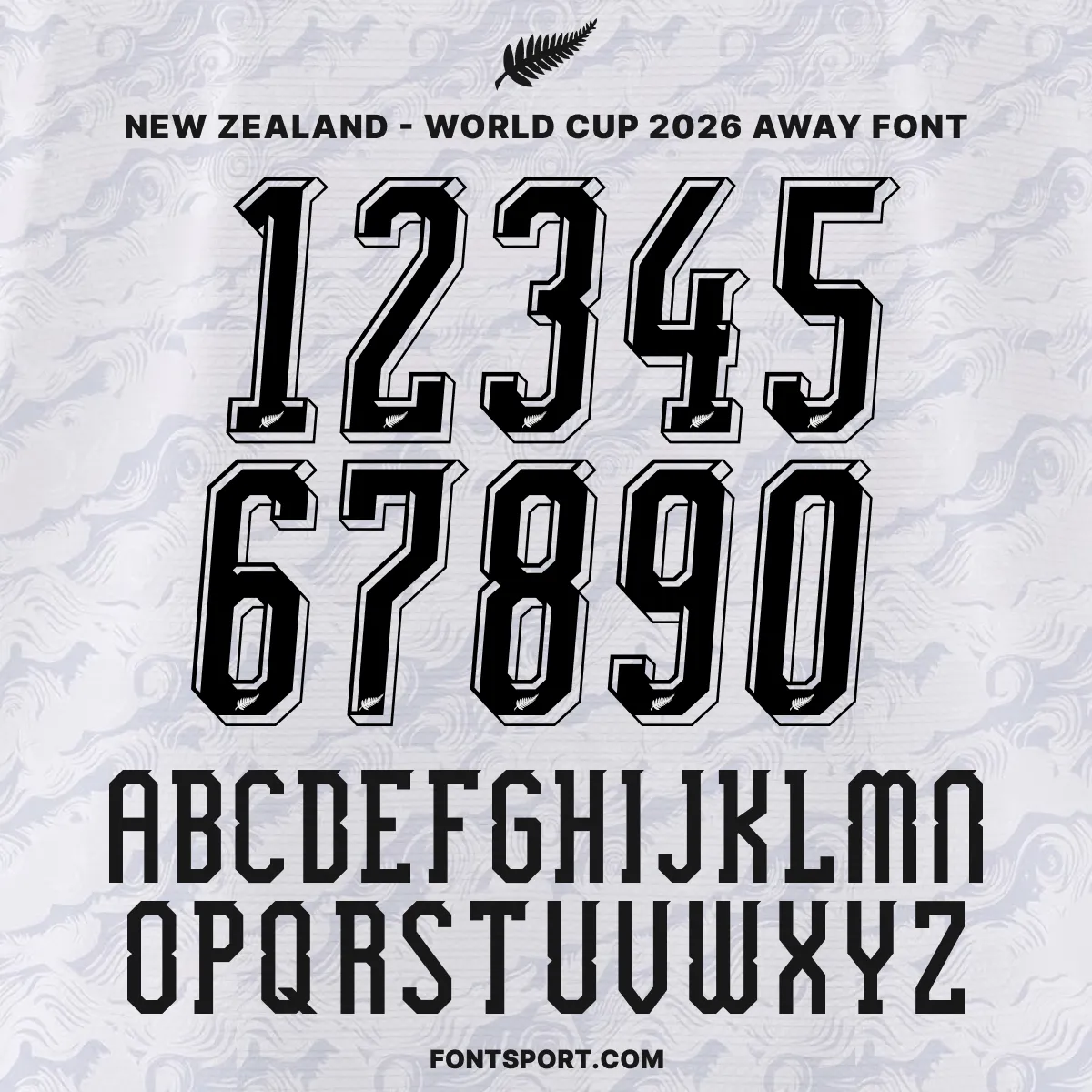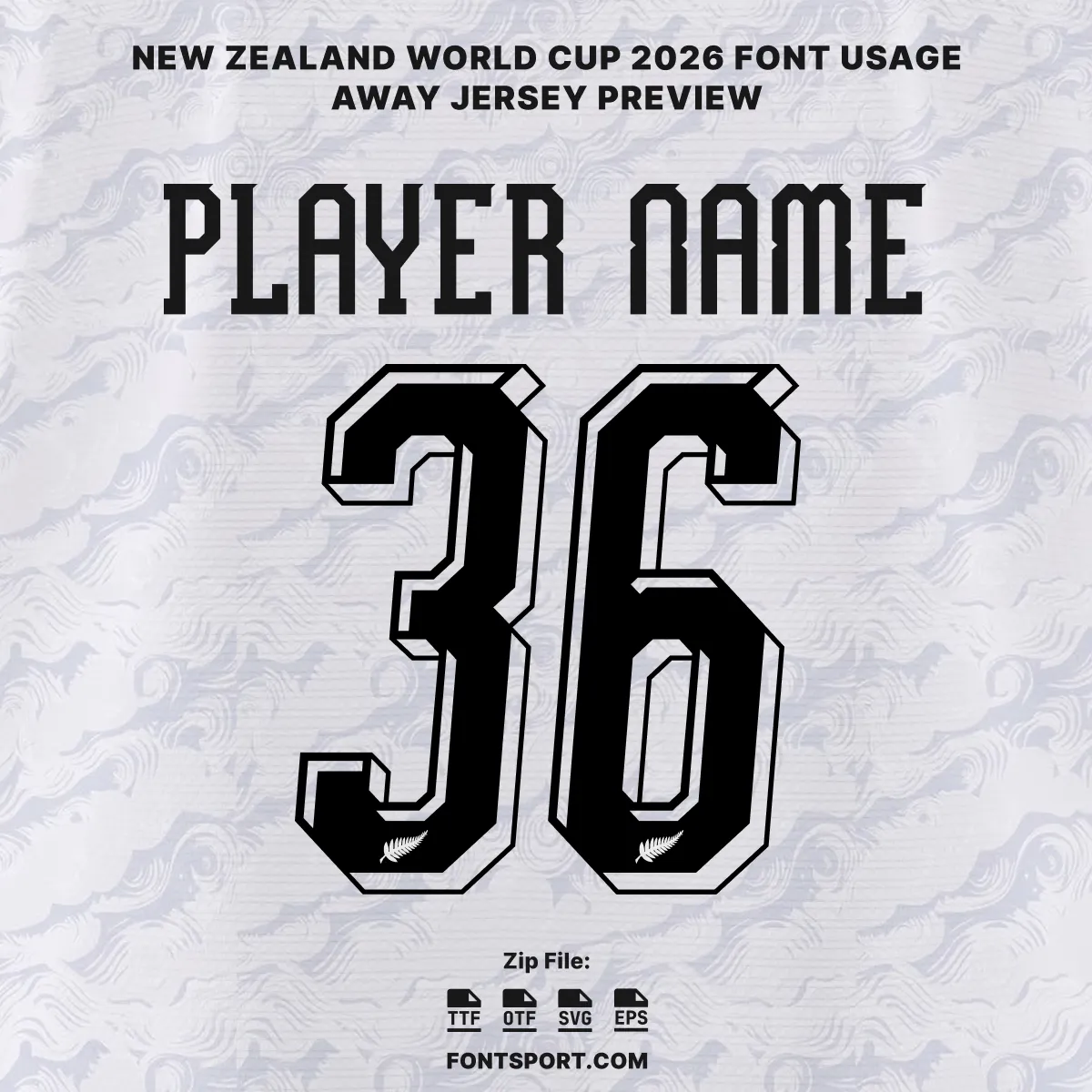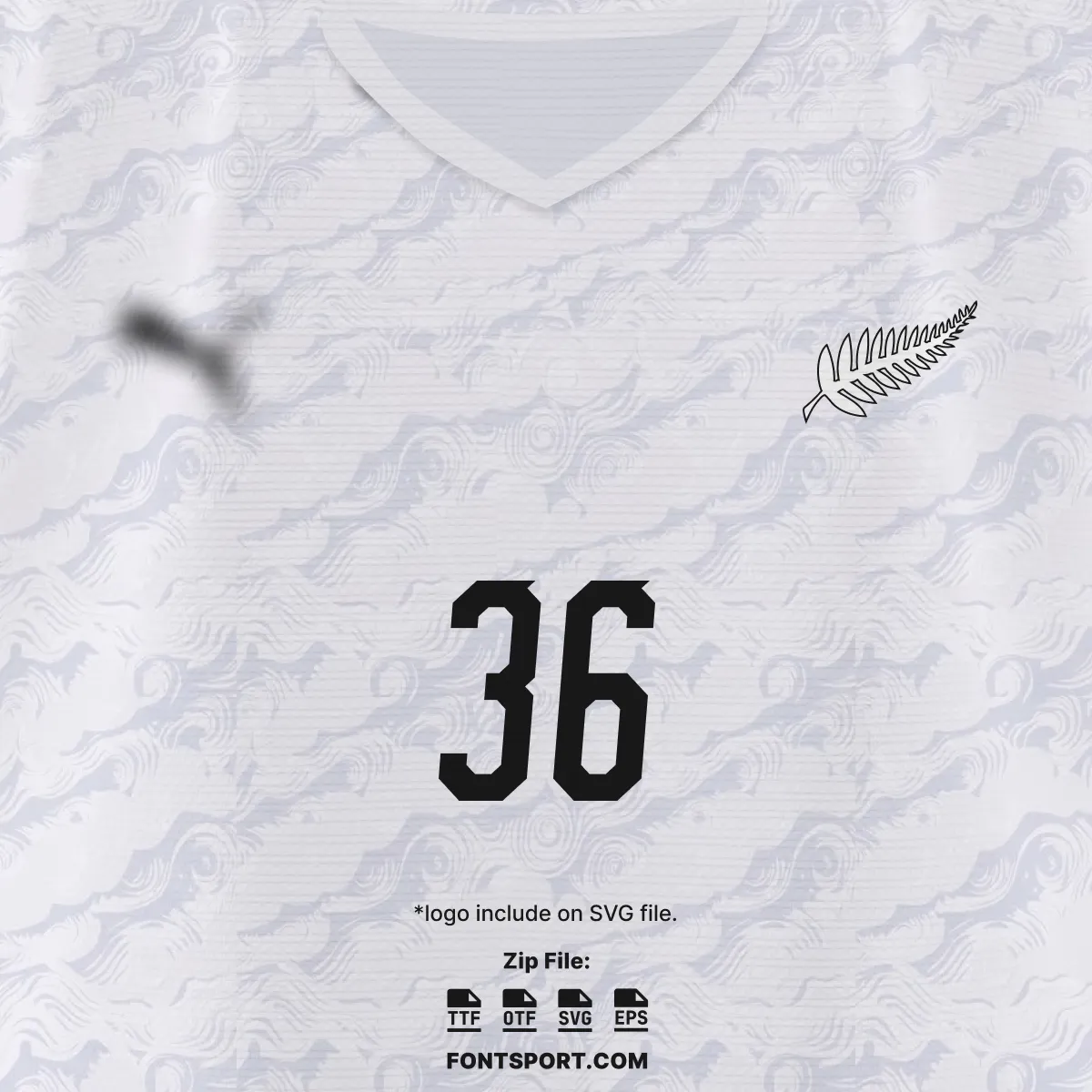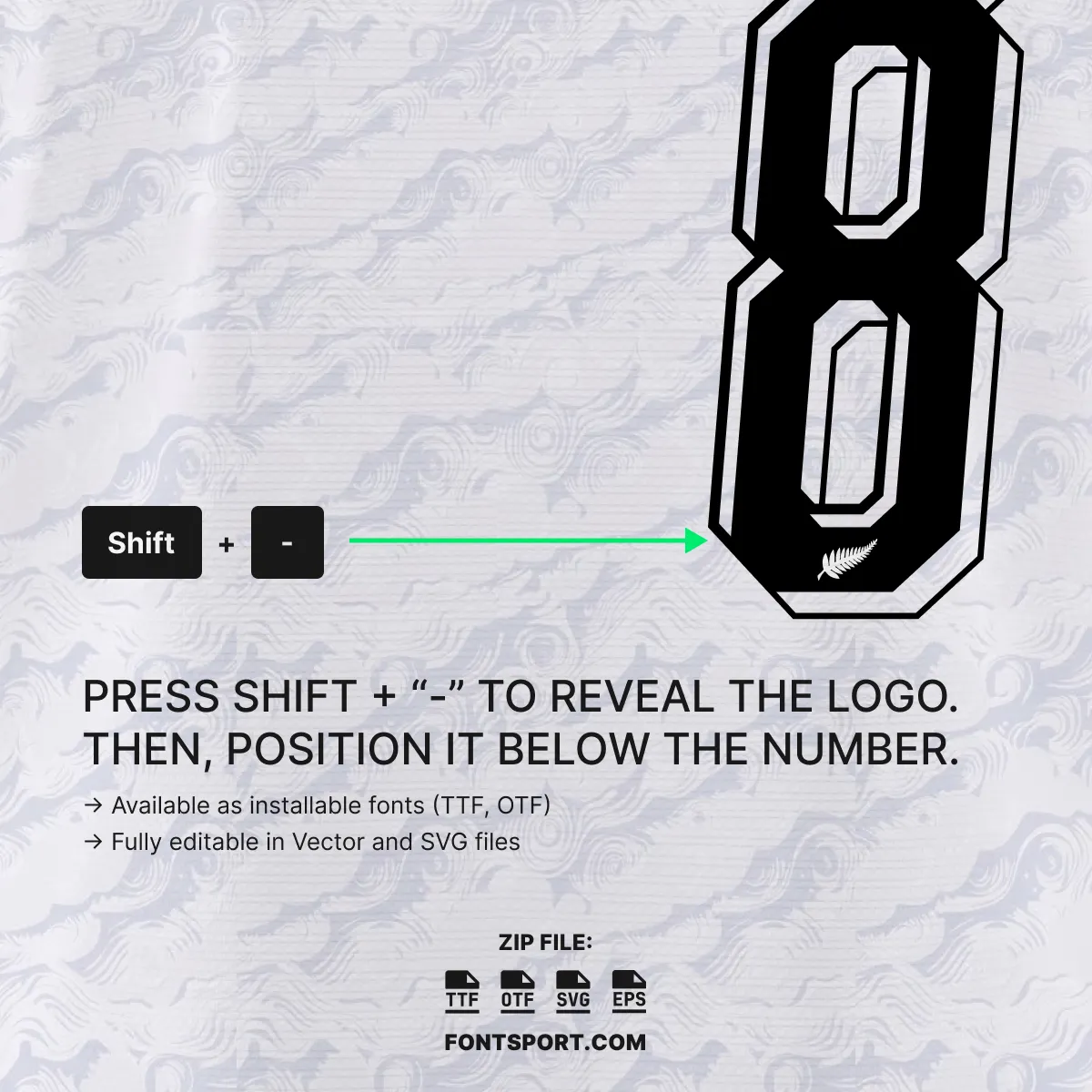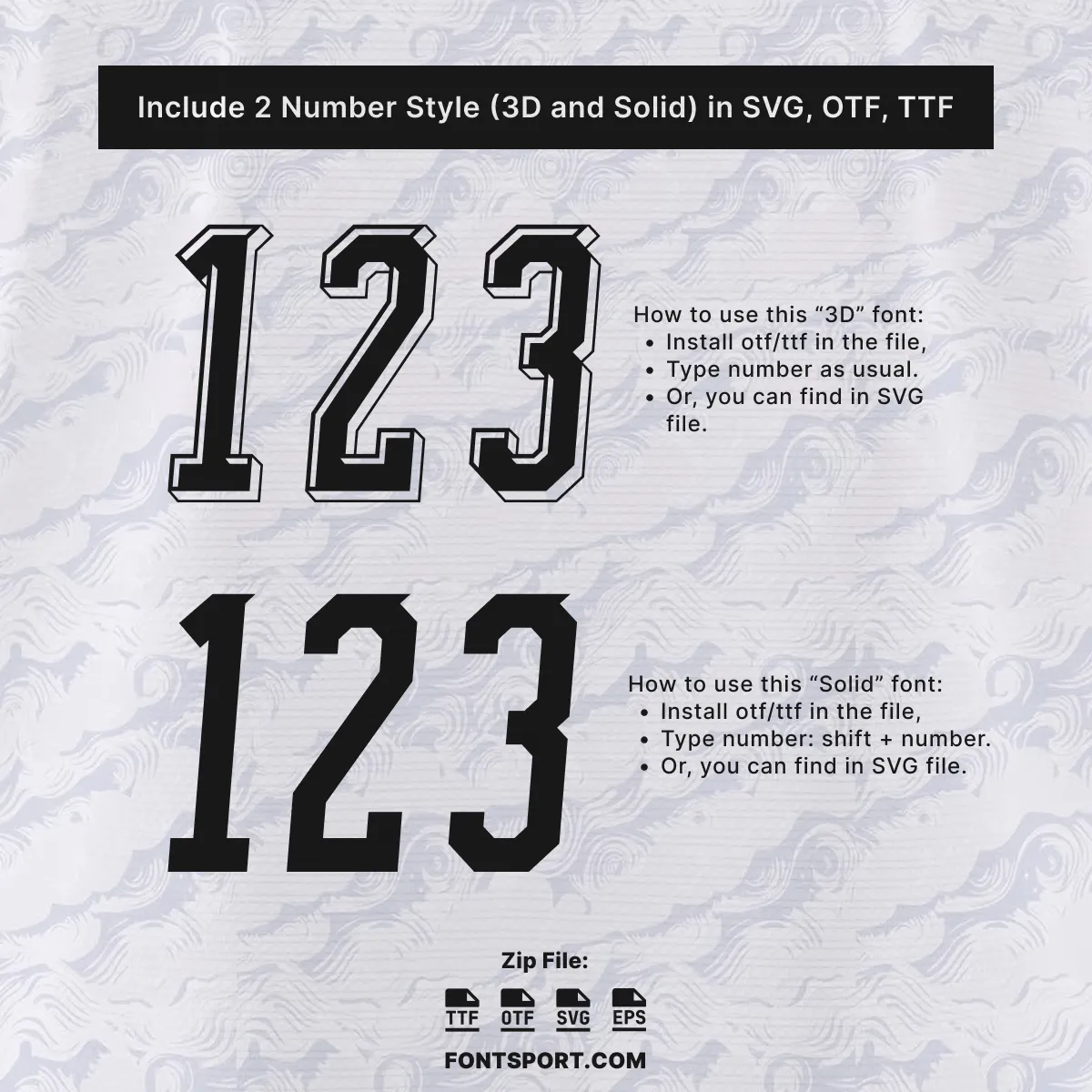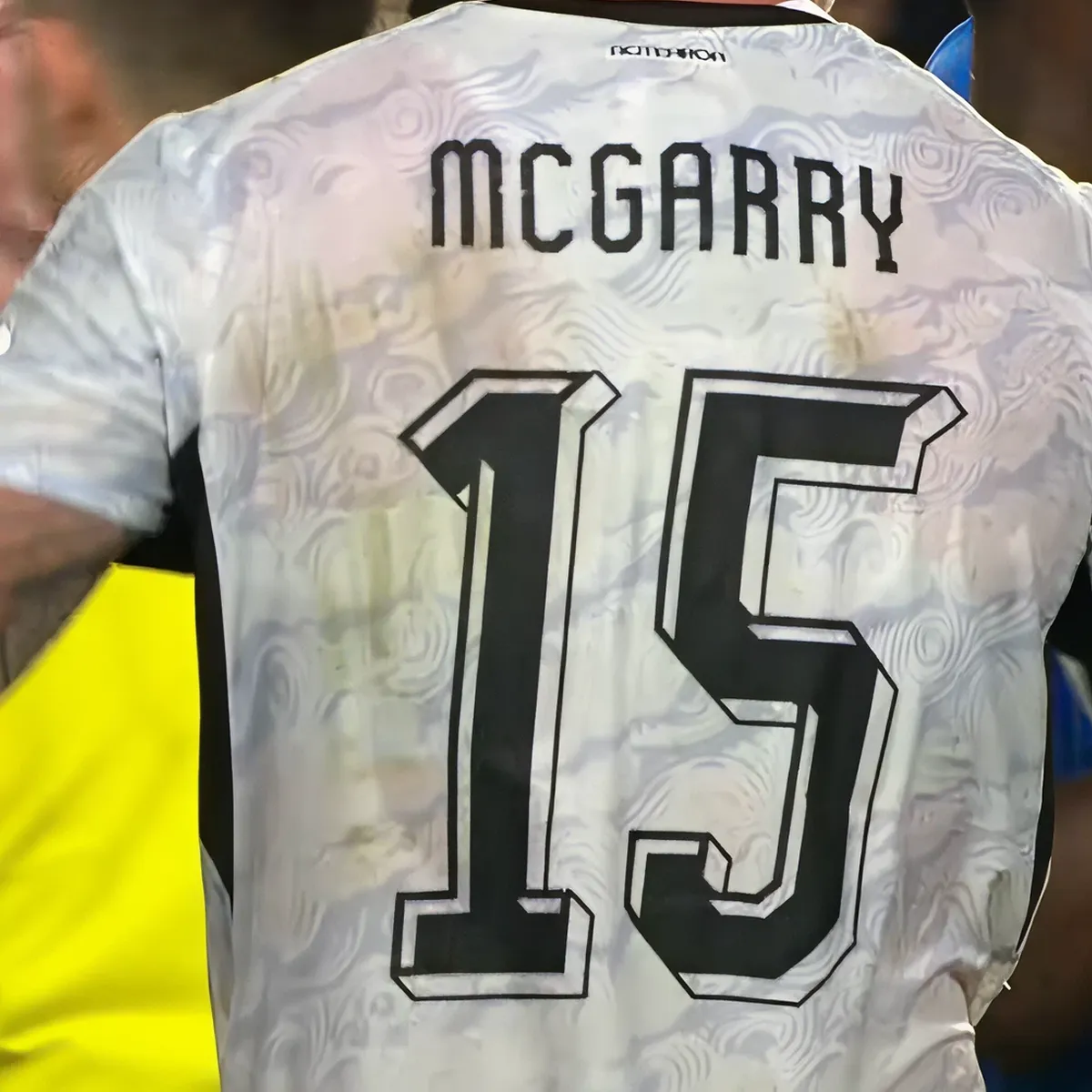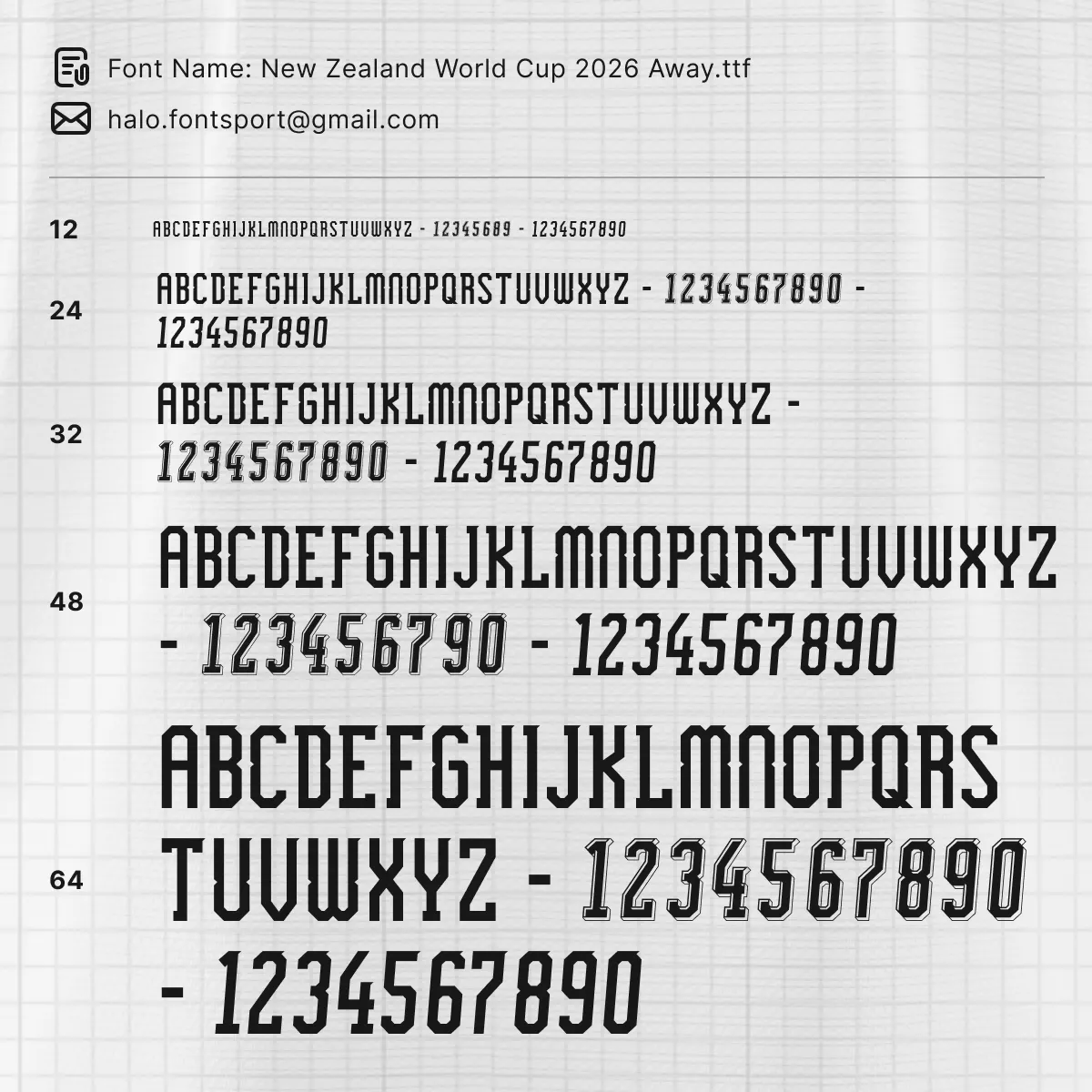
New Zealand 2026 Away Font Kit – Authentic World Cup Typeface
The New Zealand 2026 World Cup away font kit captures the match-ready lettering style seen on the All Whites away shirt during their 2026 World Cup cycle. It is built for fans, kit designers, and football creators who want a clean and accurate international typeface. Moreover, the letterforms and numbers reflect the bold, angular look shown across the away application and shirt previews.
New Zealand carry a clear visual identity in this release. The away style pairs a light base with strong black characters, crisp outlines, and a fern-inspired detail that gives the numerals extra personality. As a result, the font works especially well for shirt names, squad numbers, social graphics, and print-ready mockups.
Key Visual Identity of the Font
Typography Style
This typeface uses tall, narrow letterforms with a structured vertical rhythm. In particular, the uppercase set feels compact and sharp, which helps names stay readable across the shoulders and upper back of a jersey.
Number Design
The numerals are the standout feature. They combine a bold black core with a dimensional outlined version, creating the strong 3D effect shown in the away previews. Furthermore, the solid version gives designers a second styling option for simpler layouts.
- ✅ Full uppercase A–Z & numbers 0–9 in New Zealand’s 2026 away style
- ✅ Fern/logo glyph support for shirt-accurate detailing where applicable
- ✅ Two number styles included: 3D and solid